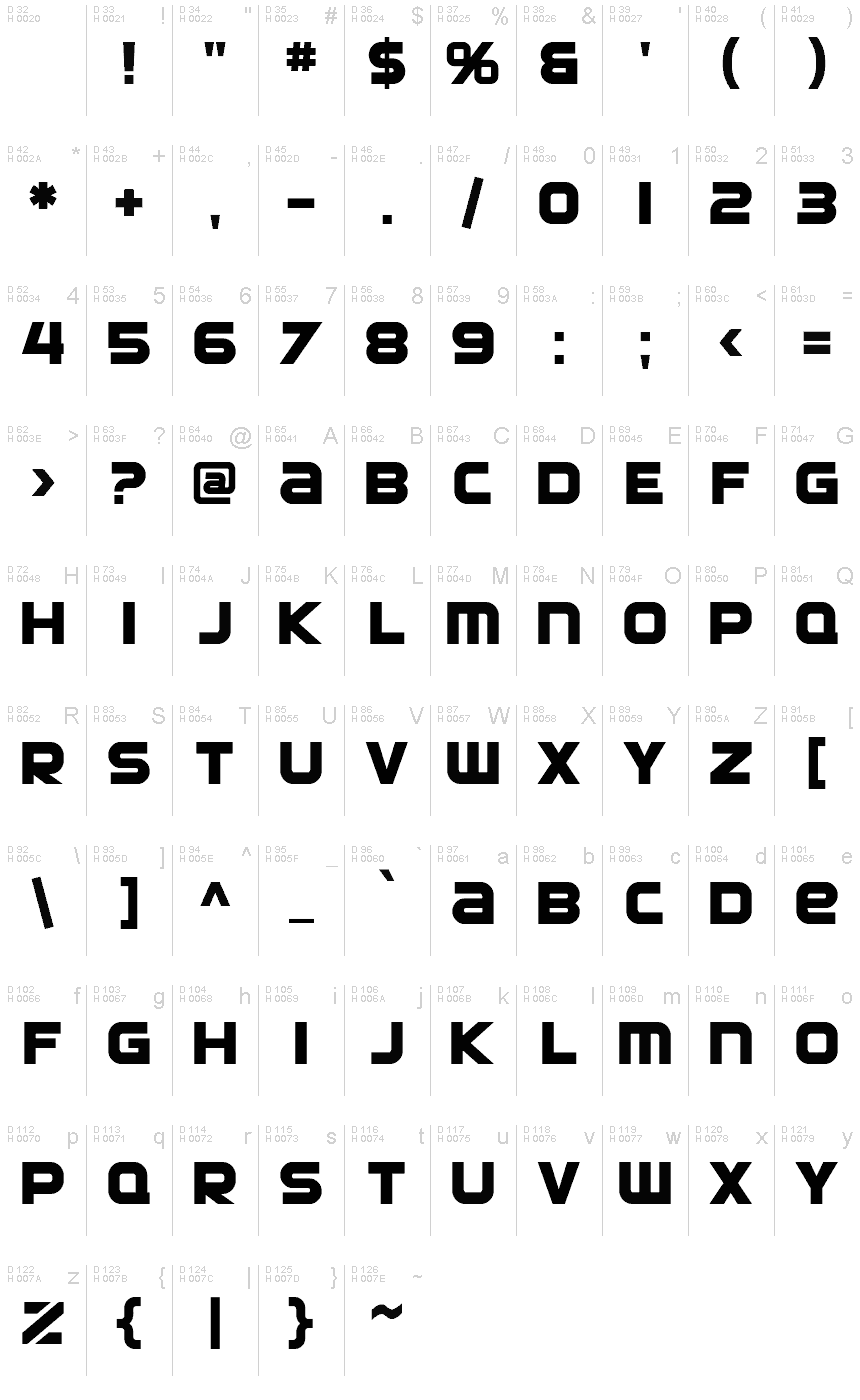
SF Automaton Bold
SF Automaton Bold emerges from the SF Automaton family as a striking display font that commands attention. Crafted by ShyFonts Type Foundry, this typeface embodies a bold, futuristic aesthetic with its expanded width and assertive weight. The clean lines and sleek design of SF Automaton Bold exude modernity and sophistication, making it an impeccable choice for projects that aim to convey strength and innovation.
Its distinctive style is particularly well-suited for high-impact branding, cutting-edge advertising campaigns, or any creative endeavor where a contemporary flair is essential. The font's clarity and presence ensure legibility from afar, which is perfect for signage or poster work. Moreover, its expanded character set demonstrates versatility across both digital screens and print media.
Whether utilized in tech-themed graphics or as part of a minimalist composition, SF Automaton Bold offers designers a versatile tool to make their messages resonate in today's visually-driven culture.